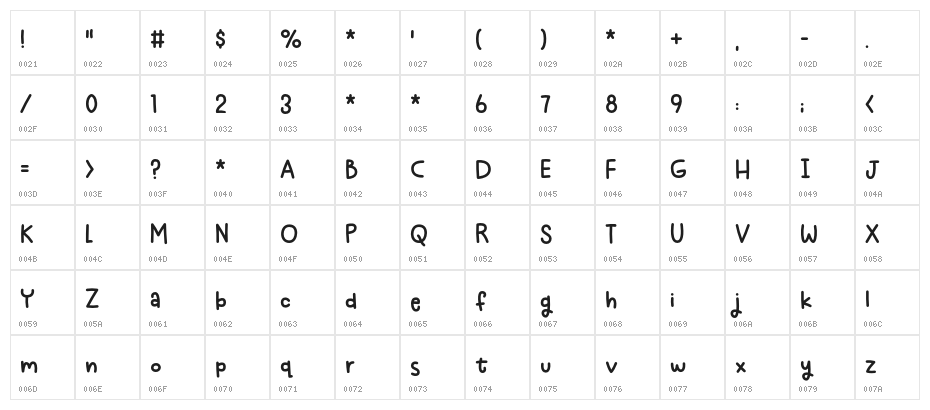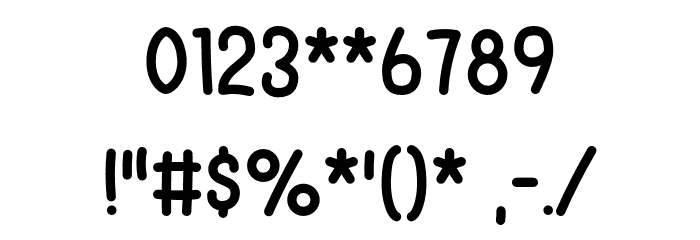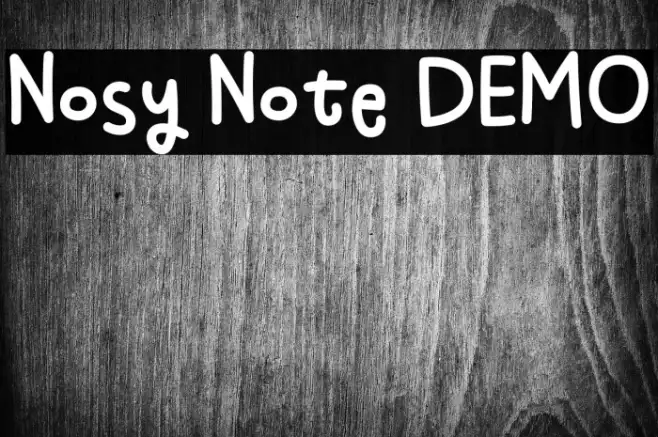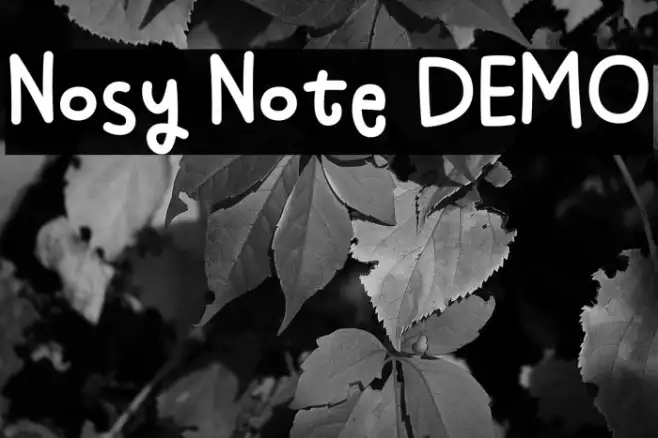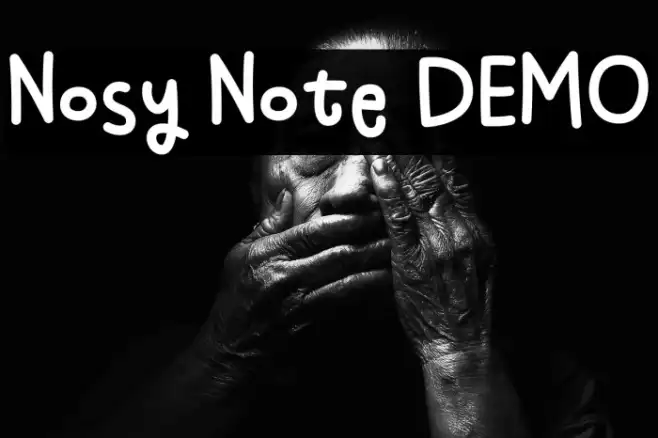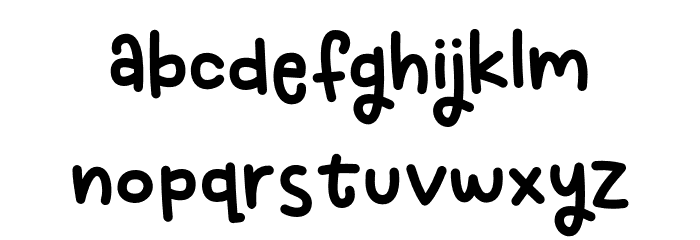
Nosy Note DEMO Font
Nosy Note DEMO Description
This font features a playful and casual handwritten style, characterized by its rounded and slightly irregular letterforms. The strokes are consistent in thickness, giving it a uniform appearance that is easy to read. The uppercase and lowercase letters maintain a friendly and approachable aesthetic, making it suitable for informal and creative projects. The numerals and special characters are designed to match the overall whimsical feel, ensuring coherence across all text elements. Its simplicity and charm make it versatile for various design applications.
| Proposed Projects | Ideal for children's books, greeting cards, playful branding, and informal invitations. |